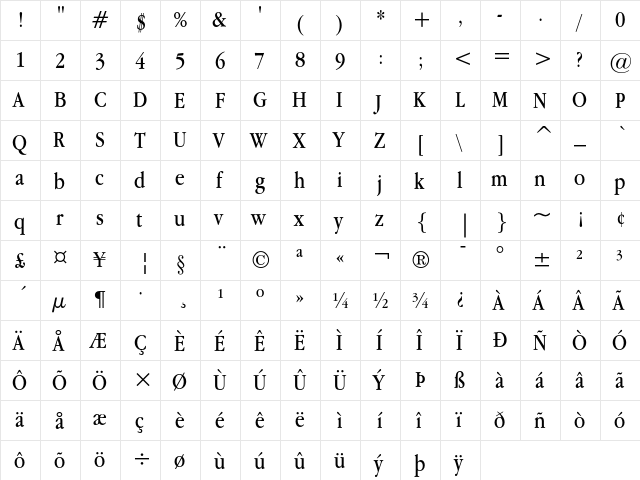
Apple Garamond Book
Design Context for Apple Garamond Typeface
Apple Garamond is a composed and adaptable typeface that performs quietly and consistently across a wide range of design contexts.
Pro Tip: Pair Apple Garamond with a font of contrasting weight or personality to build a more expressive typographic hierarchy.